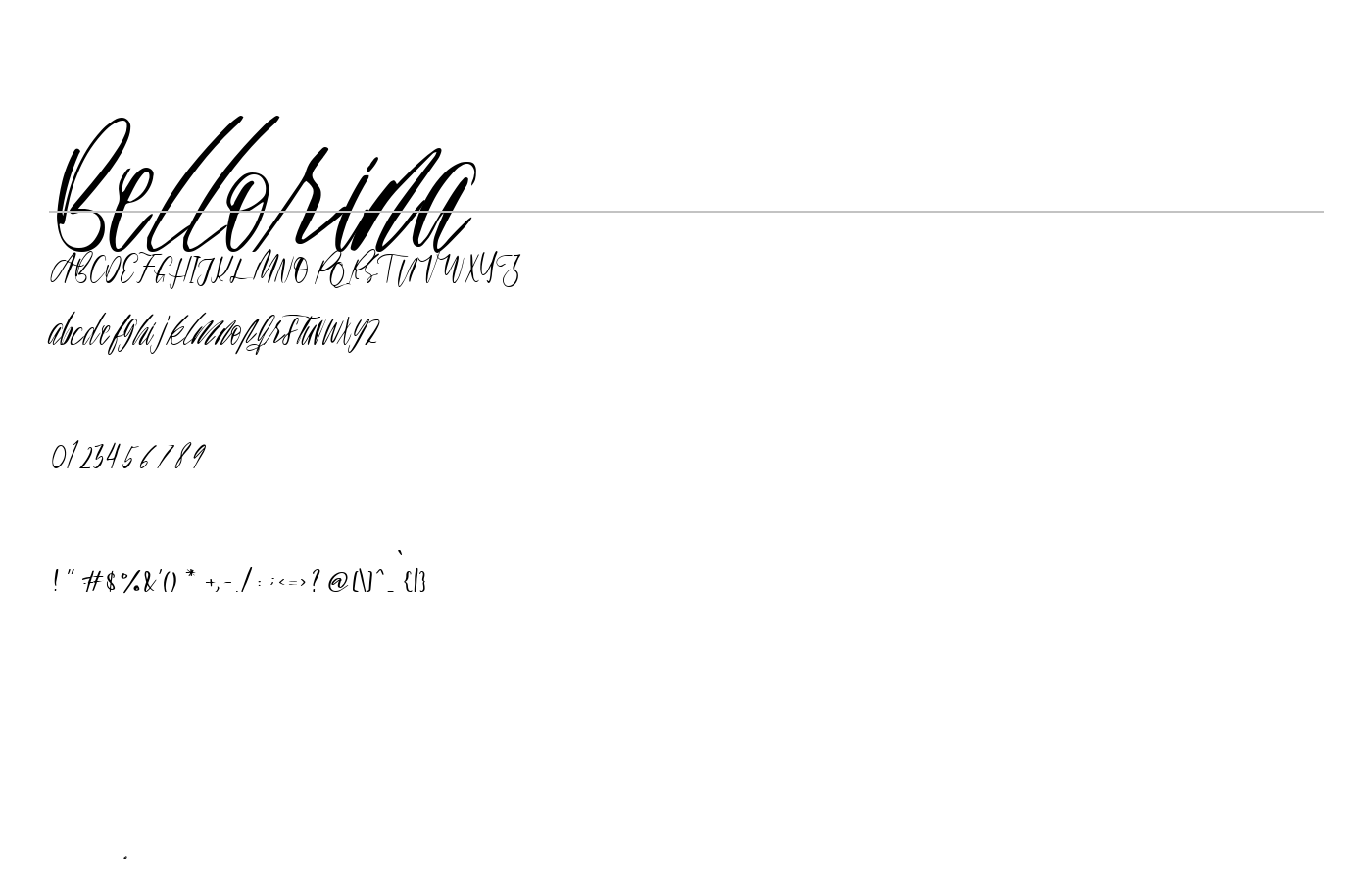
Bellorina is a delicate and elegant script font characterized by its thin, flowing strokes and tall, narrow letterforms. Its refined, handwritten style exudes sophistication and grace, making it perfect for invitations, luxury branding, and editorial designs where a touch of elegance is desired. Due to its fine lines and intricate details, it works best in large sizes for headlines or decorative text rather than body copy.
Bellorina Font